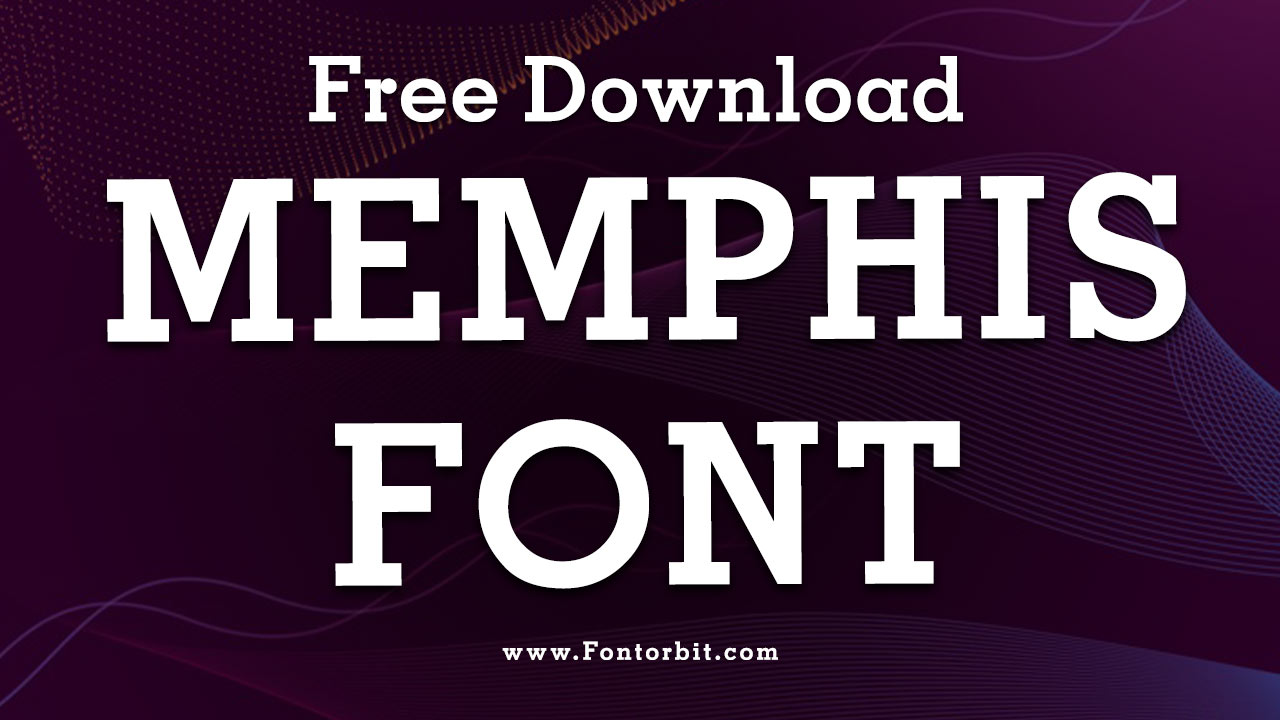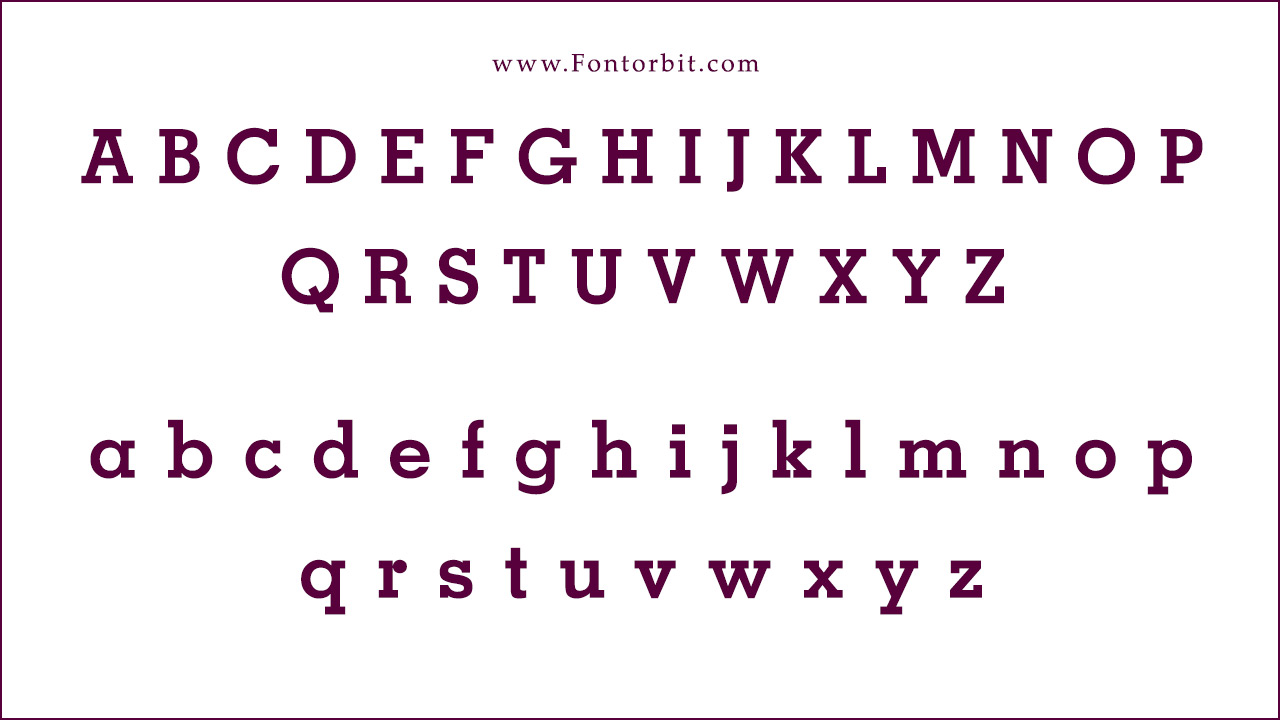
Memphis Font is a classic geometric slab serif typeface designed by Rudolf Wolf and first released by the Stempel Type Foundry in 1929.
The design is influenced by German geometric sans-serifs like Futura, with bold, monolinear strokes and a unique single-story ‘a’ that makes it stand out. Memphis Font offers a wide variety of styles, making it perfect for both display and text use.
| Style: | Slab Serif |
Memphis Font Family Includes
- Memphis Light
- Memphis Light Italic
- Memphis Medium
- Memphis Medium Italic
- Memphis Bold
- Memphis Bold Italic
- Memphis Extra Bold
Notable Uses Of Memphis Font
Designers can use Memphis Font in a variety of projects, including:
- Social media ads, banners, and graphics
- Game interfaces
- Office branding
- App design
- Promotional videos
- Directories
- Presentations
Memphis Font Found In Use
Memphis is often found in sporting event materials, photograph designs, and projects where a bold and impactful font is needed. Its geometric design makes it a perfect choice for modern and retro themes alike.
If you’re looking for free alternatives to Memphis, here are some similar fonts:
- Rockwell
- Stymie
- Emy Slab
- EF Stratford
- Prestige
2.Who Designed The Memphis Font?
Rudolf Wolf designed Memphis Font, which was first released in 1929.
3.What Type Of Font Is Memphis?
Memphis is a geometric slab serif typeface.
4.Where Can I Use Memphis Font?
Memphis Font can be used in social media graphics, office branding, app design, promotional videos, and more.
5.Are There Free Alternatives To Memphis Font?
Yes, similar fonts include Rockwell, Stymie, and Emy Slab.